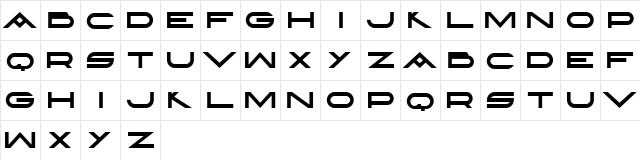
Leculier Regular
Design Context for Leculier Typeface
Leculier offers clean, dependable letterforms without strong stylistic allegiance, making it a practical choice for designers who need flexibility.